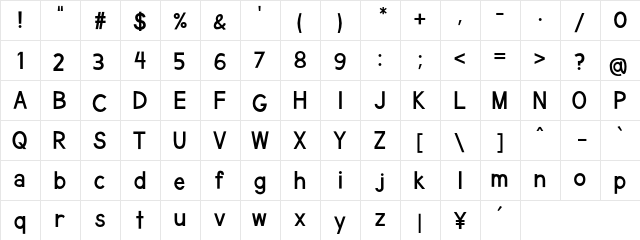
Give Me The Scoop Regular
Design Context for Give Me The Scoop Typeface
Give Me The Scoop is a composed and adaptable typeface that performs quietly and consistently across a wide range of design contexts.
Pro Tip: Use Give Me The Scoop in both headline and body roles to test its range before committing to a single application.